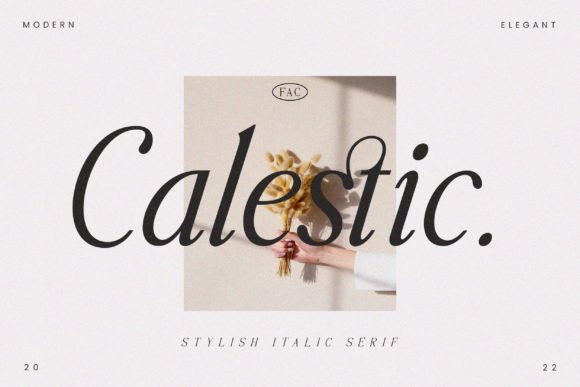
Introducing Calestic Font: Elevate Your Designs with Modern Serif Italic Elegance
In the world of typography, the right font can make all the difference in transforming a design from ordinary to extraordinary. For designers and crafters seeking a modern, elegant, and versatile typeface, Calestic Font is an exceptional choice. This modern serif italic typeface is designed to add a flawless touch to any design you create, making it perfect for projects that demand sophistication and style.
What Makes Calestic Font Stand Out?
Calestic Font boasts a range of features that set it apart from other typefaces. Its modern serif italic design offers a unique blend of classic elegance and contemporary flair, making it suitable for a wide array of design applications. Whether you’re working on a branding project, a website, a print design, or any other creative endeavor, Calestic Font is sure to impress.
Key Features of Calestic Font
- Modern Serif Italic Design: Calestic’s sleek and modern serif italic design ensures that your text stands out with an air of sophistication.
- Flawless Touch: The font’s smooth lines and elegant curves provide a flawless touch to any design, making it perfect for projects that require a high level of refinement.
- Connected Letters and Swashes: One of the standout features of Calestic Font is its connected letters and swashes. These decorative elements allow you to add a classy and elegant style to your designs, taking them to the next level.
- Versatility: Calestic Font is incredibly versatile, making it suitable for a wide range of design applications, from digital projects like websites and social media graphics to print materials such as brochures, posters, and business cards.
How to Use Calestic Font to Elevate Your Designs
Using Calestic Font in your designs is straightforward, and its flexibility means you can apply it in various contexts. Here are some tips on how to make the most of this beautiful typeface:
- Experiment with Connected Letters and Swashes: Don’t be afraid to try out the connected letters and swashes that Calestic Font offers. These elements can add a touch of elegance and sophistication to your designs, making them stand out.
- Pair it with Other Fonts: Calestic Font works well when paired with other fonts, especially sans-serif typefaces. Experiment with different combinations to find the perfect balance for your design.
- Use it for Headings and Titles: The modern serif italic design of Calestic Font makes it particularly suited for headings and titles. Use it to draw attention and add a touch of class to your design.
- Consider the Color Scheme: When using Calestic Font, consider the color scheme of your design. The font looks stunning in metallic colors, pastels, and rich jewel tones, which can enhance its elegant feel.
Who Can Benefit from Calestic Font?
Calestic Font is a valuable addition to the toolkit of any designer or crafter looking to infuse their projects with a modern, elegant aesthetic. This includes:
- Graphic Designers: Whether you’re working on branding, advertising, or print design, Calestic Font can help you achieve a sophisticated look.
- Web Designers: For websites and digital applications, Calestic Font can add a touch of elegance and professionalism.
- Crafters and Makers: If you’re creating digital or physical products that require a stylish touch, Calestic Font is an excellent choice.
Calestic Font is more than just a typeface; it’s a design statement. Its modern serif italic design, coupled with its elegant connected letters and swashes, makes it an exceptional tool for designers and crafters aiming to create stunning, high-quality designs. By incorporating Calestic Font into your projects, you can ensure that your work stands out with a flawless, classy, and elegant style. So, don’t hesitate to explore the possibilities that Calestic Font offers and take your designs to new heights of sophistication and style.